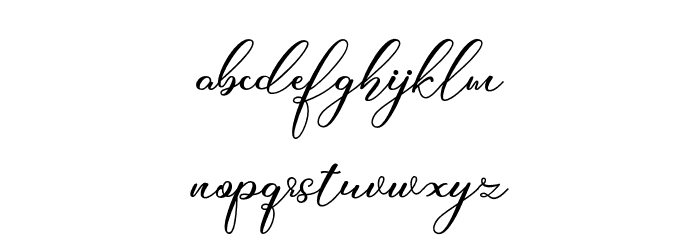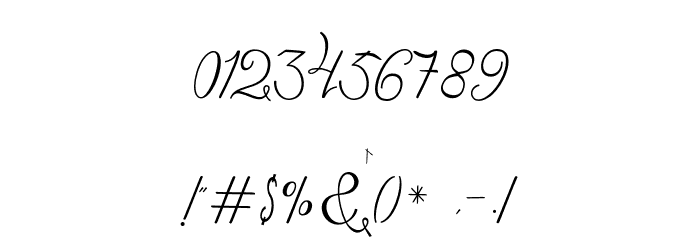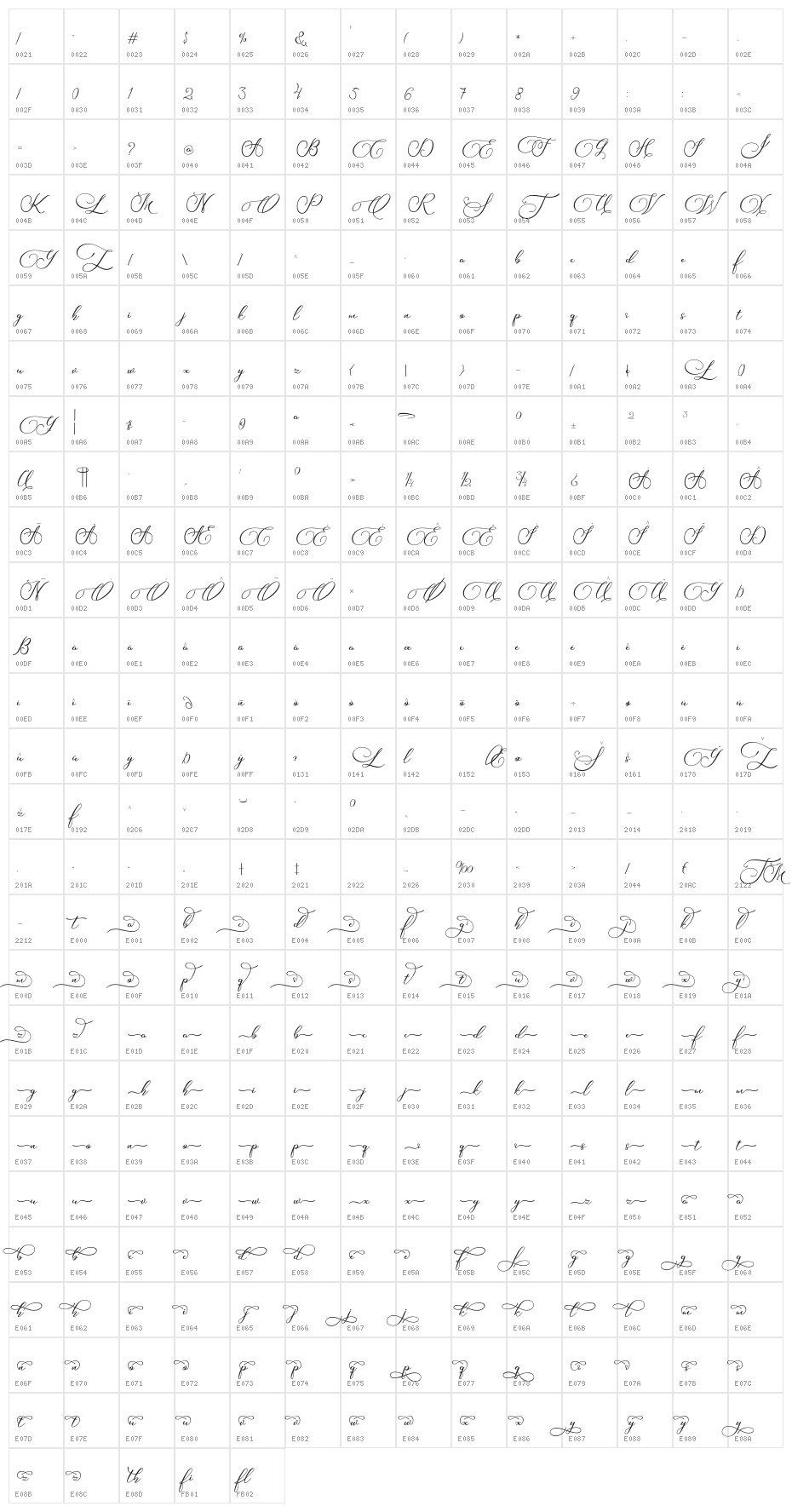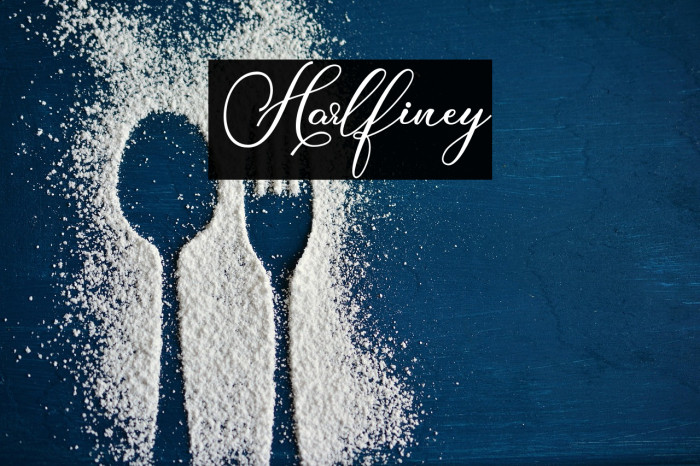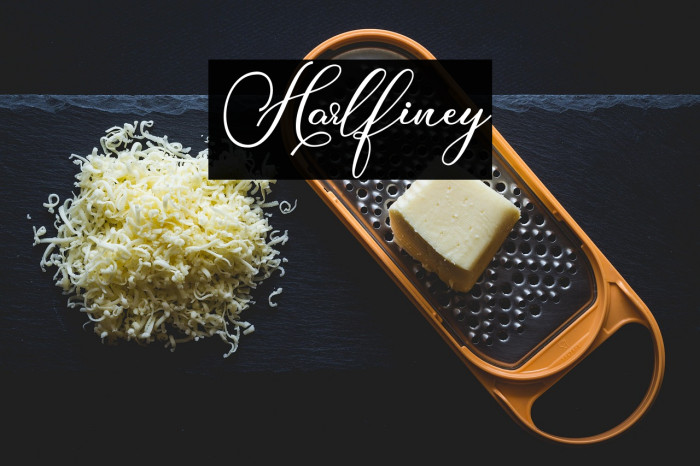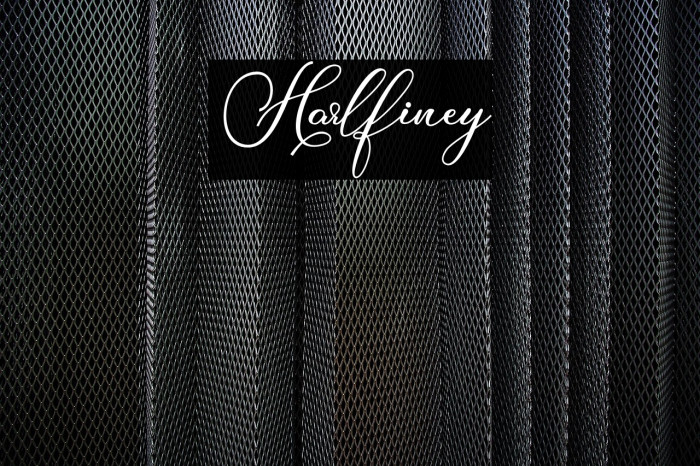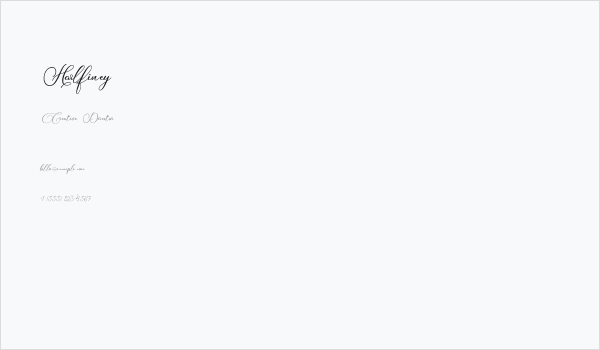
Harlfiney Font
This elegant script font features a flowing, cursive style with intricate loops and swashes, giving it a sophisticated and graceful appearance. The uppercase letters are particularly ornate, with elaborate flourishes that add a touch of luxury and refinement. The lowercase letters maintain a consistent style, with smooth, connected strokes that enhance readability while preserving the font's decorative nature. The numerals and special characters are designed to match the overall aesthetic, ensuring a cohesive look across all text elements. This font is ideal for projects that require a touch of elegance and class.
An elegant script font with flowing, cursive strokes and intricate swashes.
- Proposed Projects: Ideal for wedding invitations, luxury branding, elegant packaging, and formal event programs.
- Overall Style: Elegant
- Use Case: Logos, Invitations, Branding